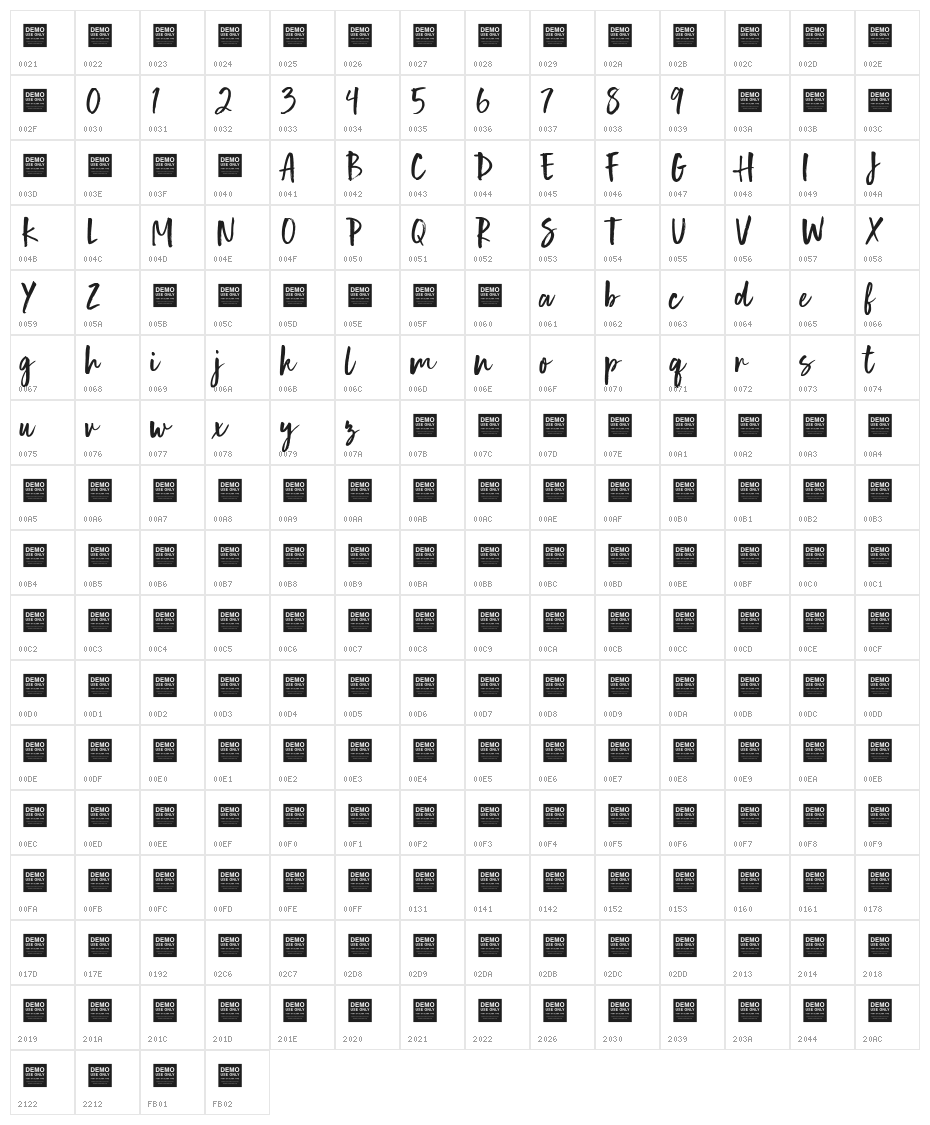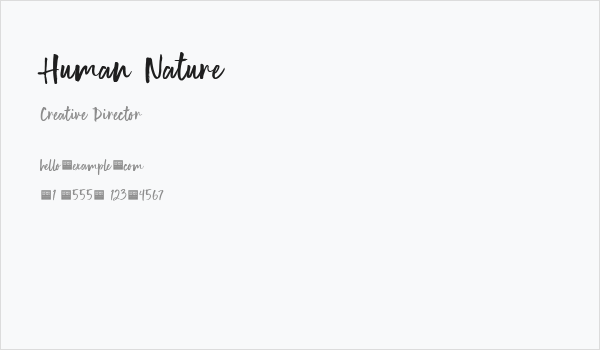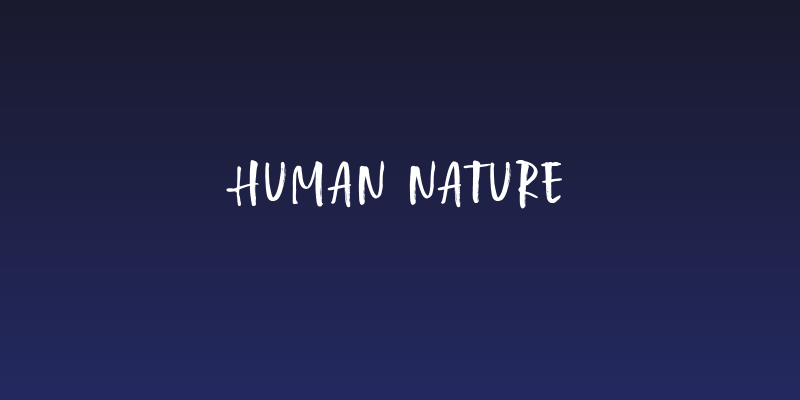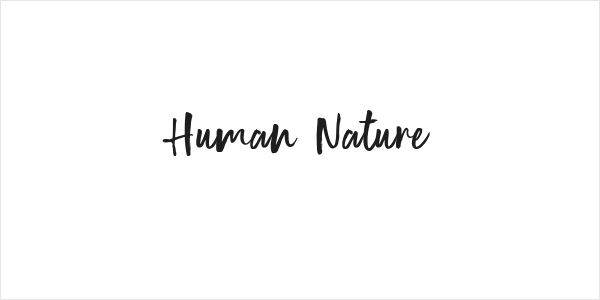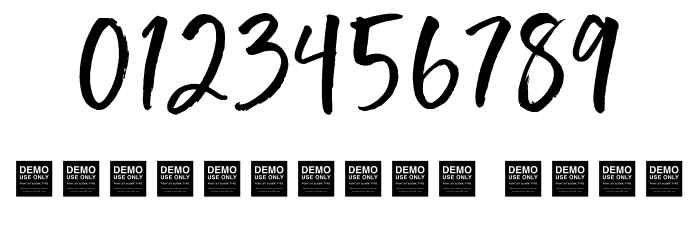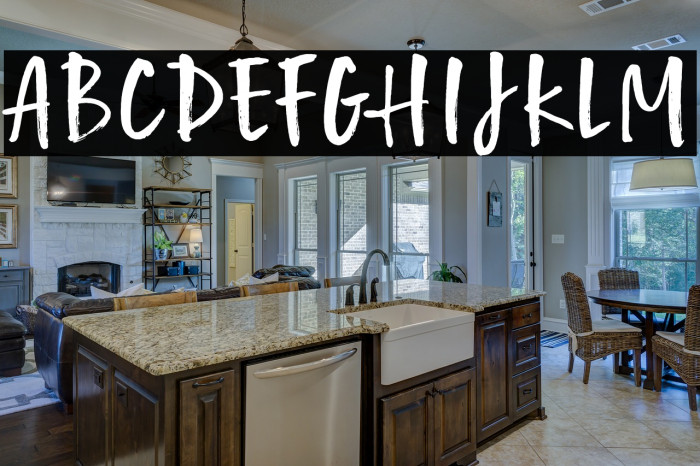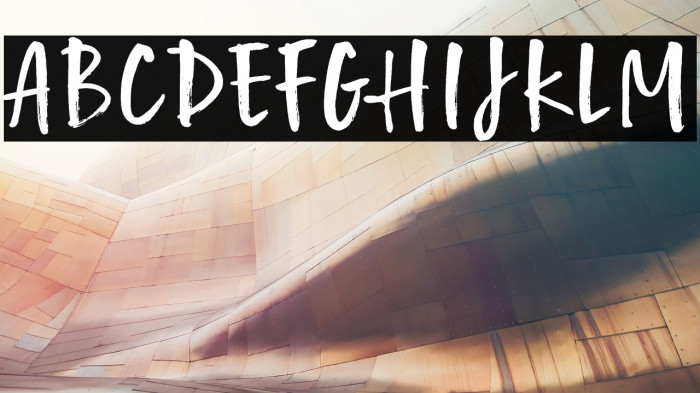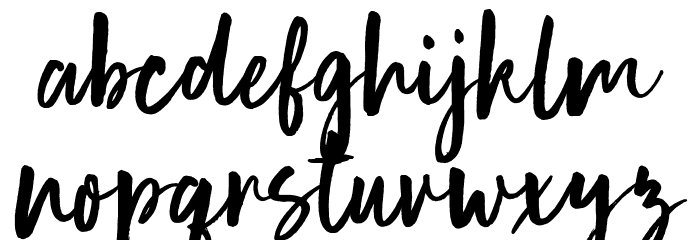
Human Nature Font
Human Nature Description
This font features a bold, expressive brush script style that exudes a sense of energy and creativity. The strokes are dynamic and fluid, with a natural, hand-painted appearance that adds a personal touch to any design. The uppercase and lowercase letters maintain a consistent flow, while the numerals and special characters complement the overall aesthetic. The font's organic feel makes it ideal for projects that require a human touch, such as invitations, greeting cards, or artistic branding.
| Proposed Projects | Ideal for invitations, greeting cards, artistic branding, and creative projects. |